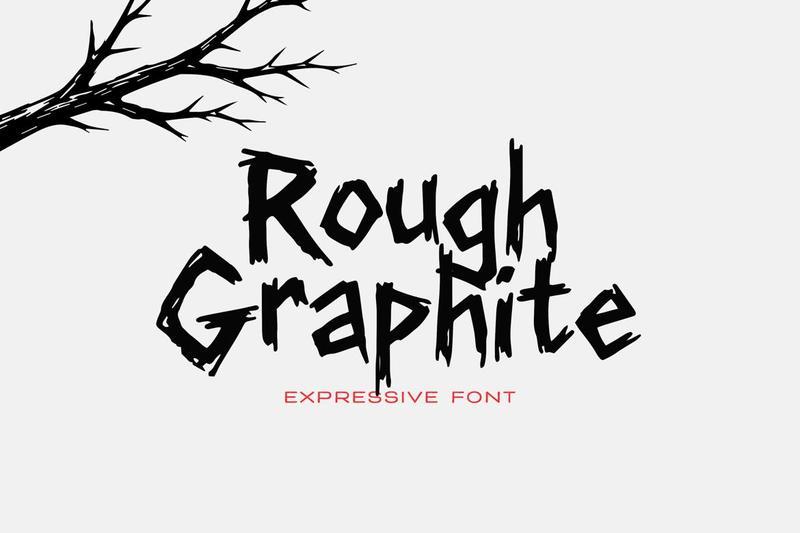
Rough Graphite Font FYDDGMV
Rough Graphite is an expressive, artist-made handwritten font with a raw graphite/ink feel imperfect, energetic, and full of character. Designed for posters, album covers, zines, branding, quotes, packaging, and bold social graphics.